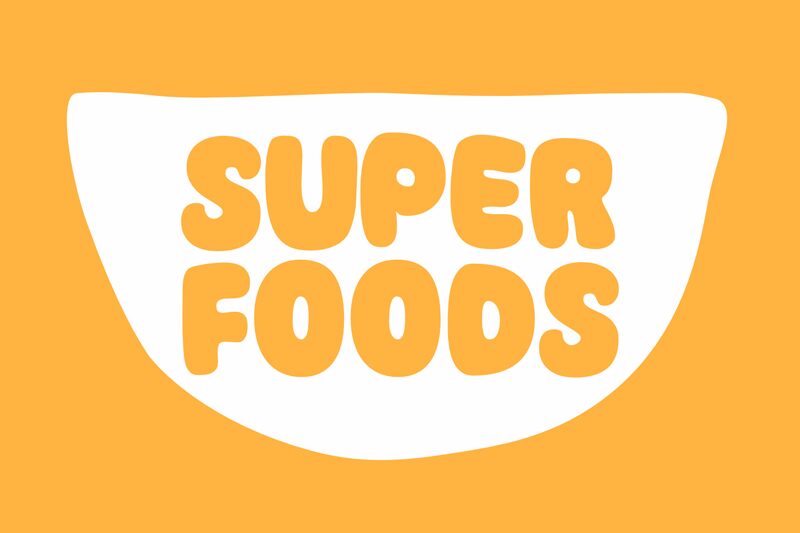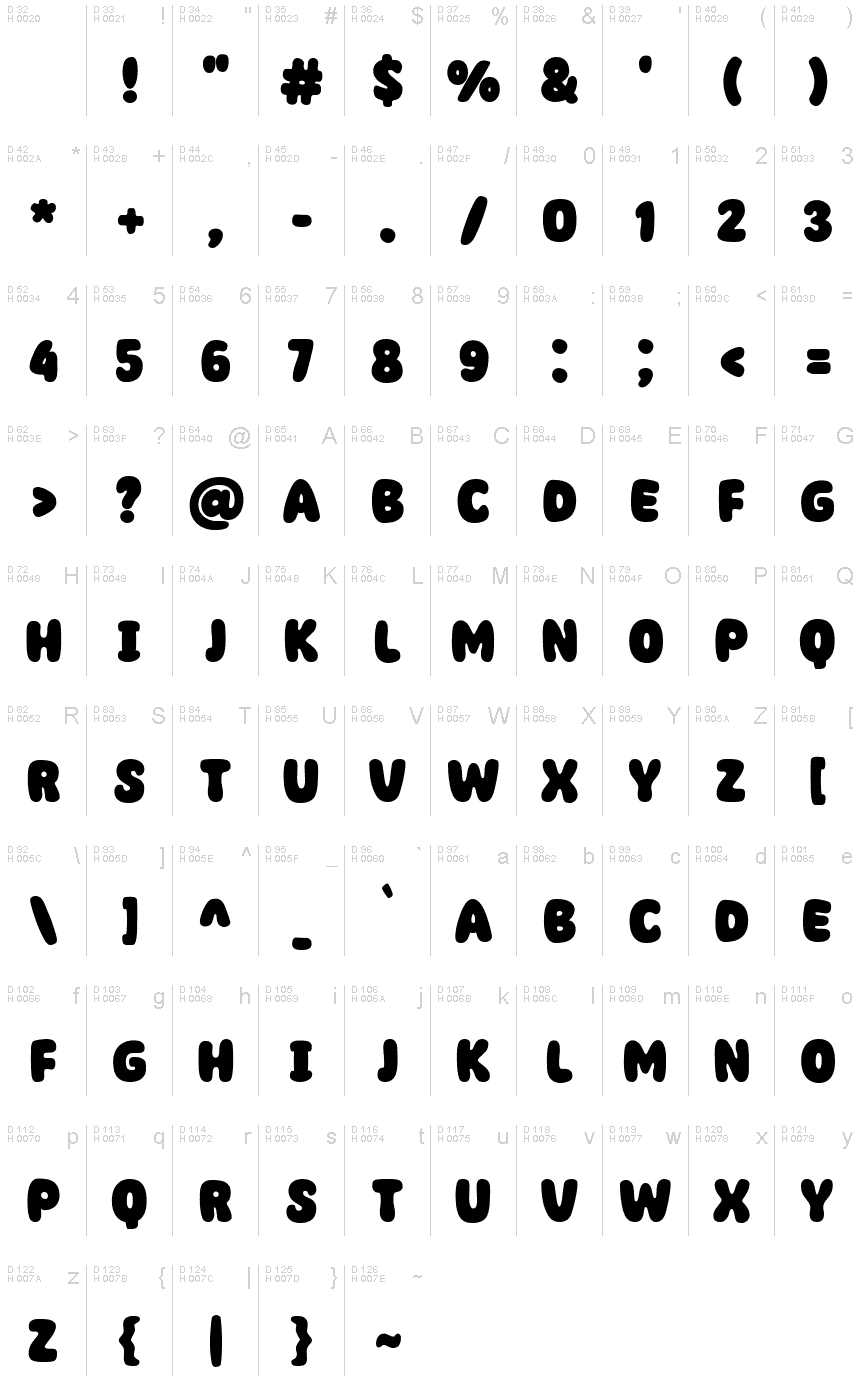
Super Foods
Super Foods is a captivating display font created by fsuarez913. With its extra-bold weight and playful cartoon style, this font is perfect for a variety of projects. Use it to add a touch of whimsy to children's books, create eye-catching logos for healthy food brands, or design vibrant packaging for organic products. Its boldness makes it ideal for headlines and attention-grabbing banners on websites promoting health-conscious lifestyles. Whether you're working on food-related graphics or simply want to add some fun to your designs, Super Foods will surely bring your project to life.